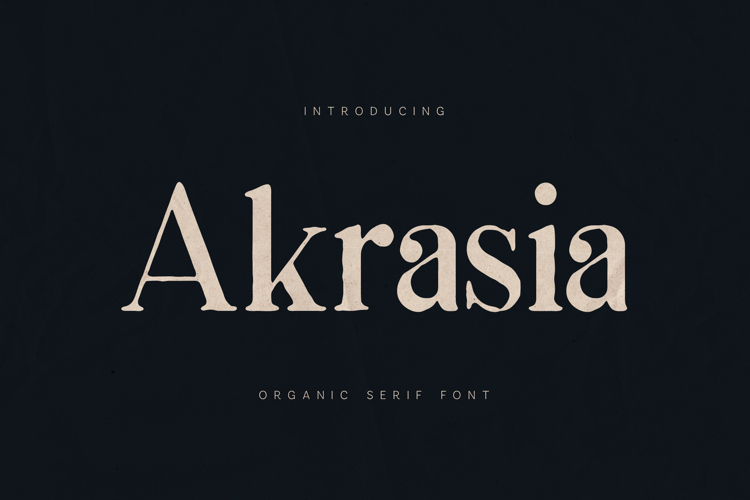
Akrasia Organic Serif Font
Akrasia is an organic serif font inspired by natural imperfections, handcrafted letterforms, and timeless typography. With its soft edges, subtle texture, and calm rhythm, Akrasia delivers warmth and authenticity while maintaining strong readability and structure.
Designed for branding, editorial layouts, book covers, posters, packaging, cultural projects, and thoughtful visual storytelling, Akrasia brings a human touch to modern design. Its organic details add personality and depth, making text feel tactile, expressive, and quietly confident.
Akrasia works beautifully in both display settings and short paragraphs, offering a balanced presence that feels natural rather than decorative. It’s especially well-suited for lifestyle brands, sustainable projects, artisanal products, and designs that value emotion and craftsmanship.
The font includes uppercase and lowercase letters, numerals, punctuation, symbols, and extensive multilingual support, making it suitable for professional and international use.
If you’re looking for a serif font that feels organic, warm, and genuinely human, Akrasia offers timeless character with natural soul.